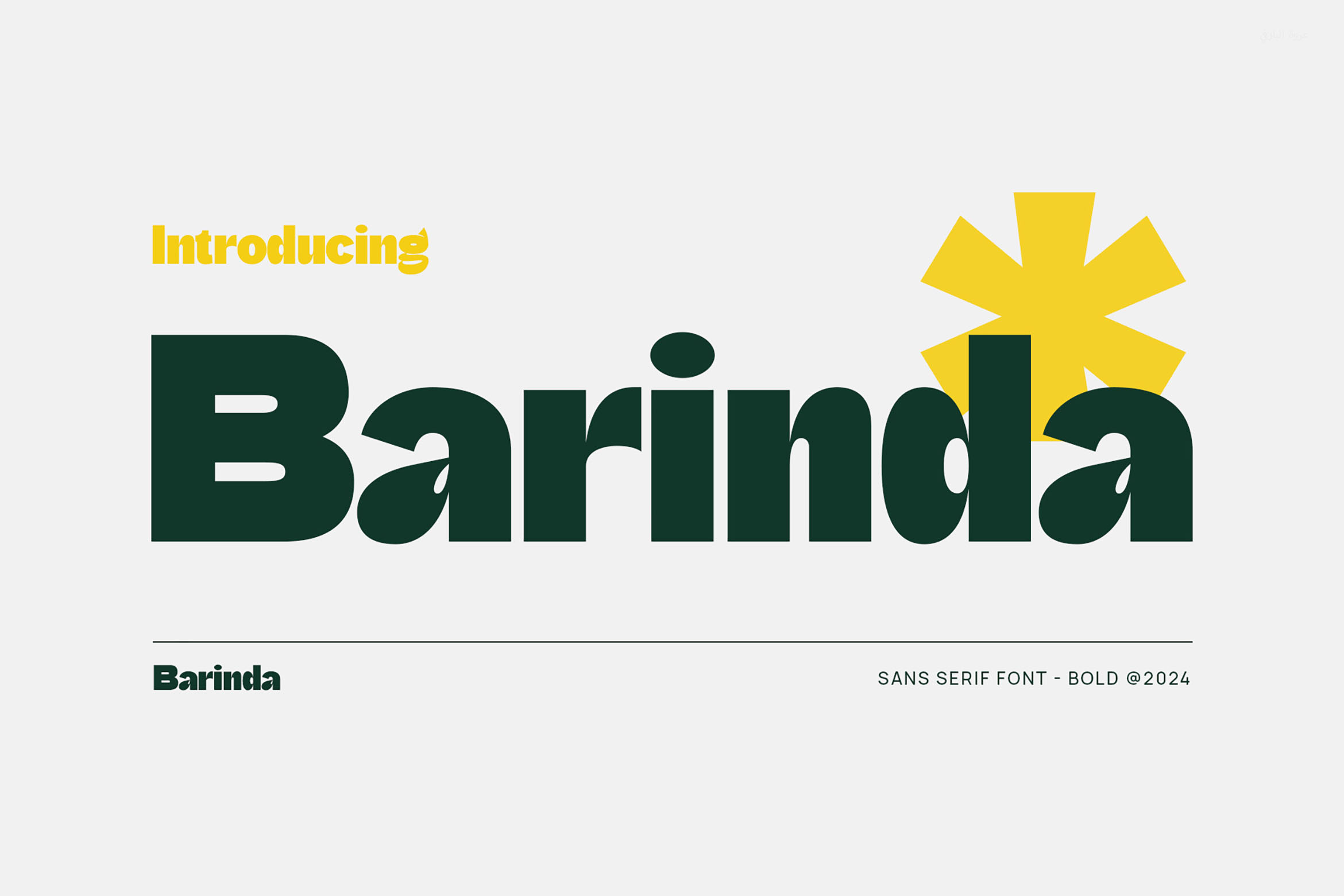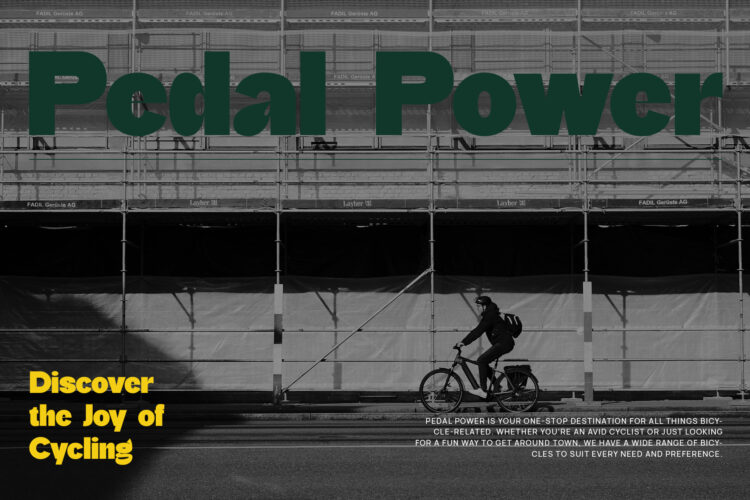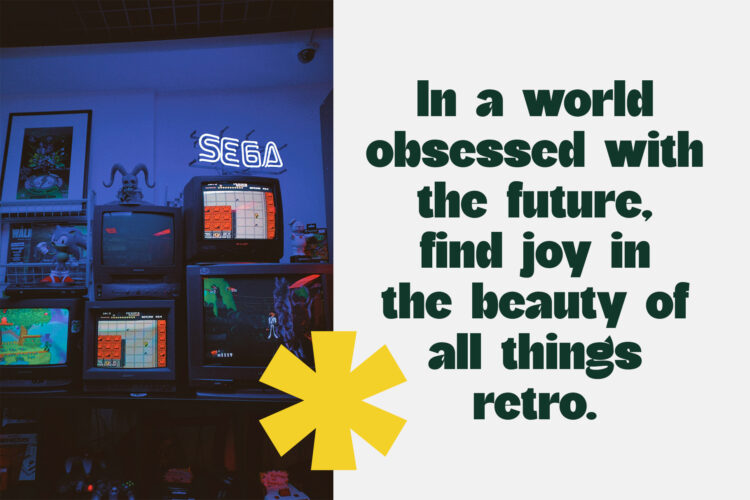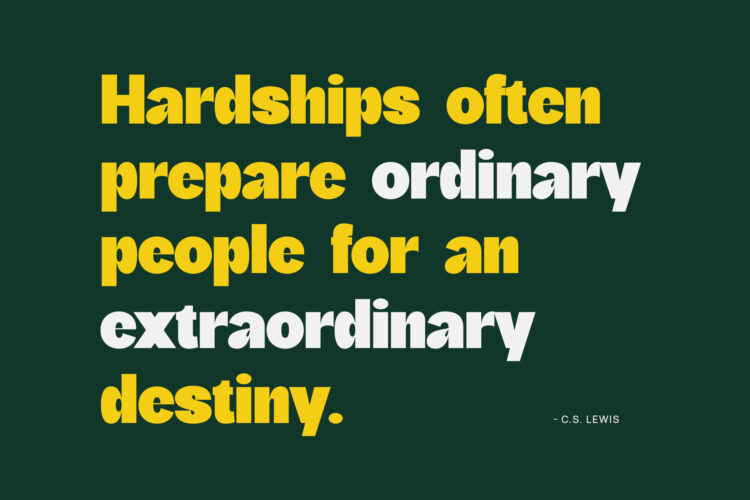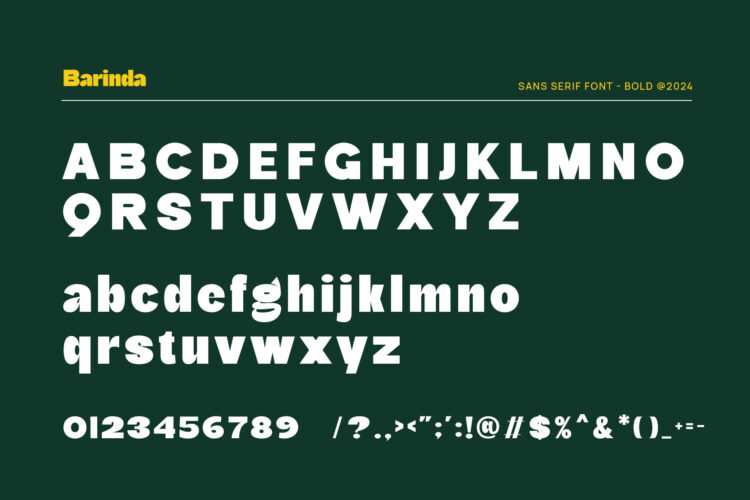
Introducing our new Barinda, modern sans serif font with elegant style this is perfect for branding, logos, invitation, magazines, product packaging and more.
Barinda – Modern Display Sans Serif